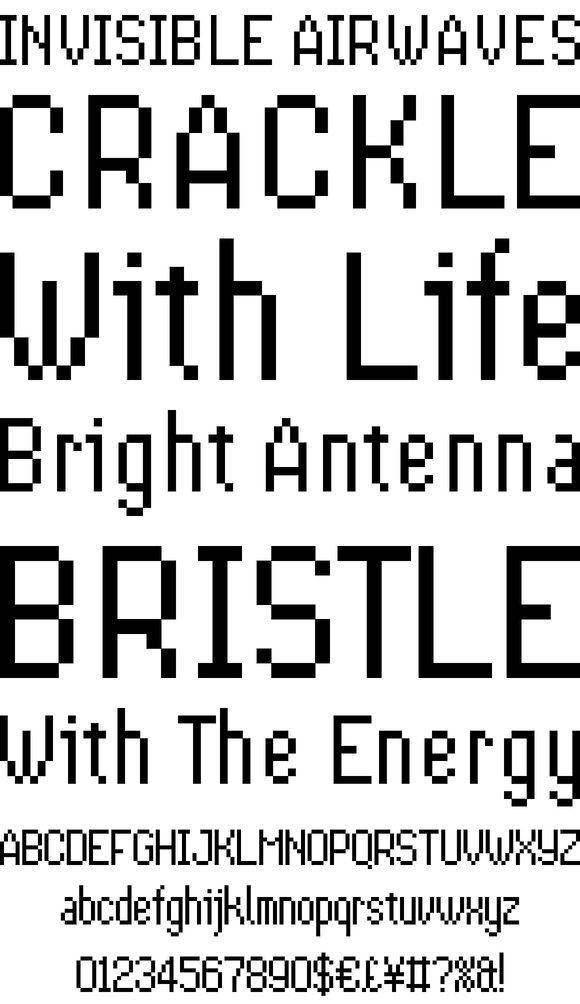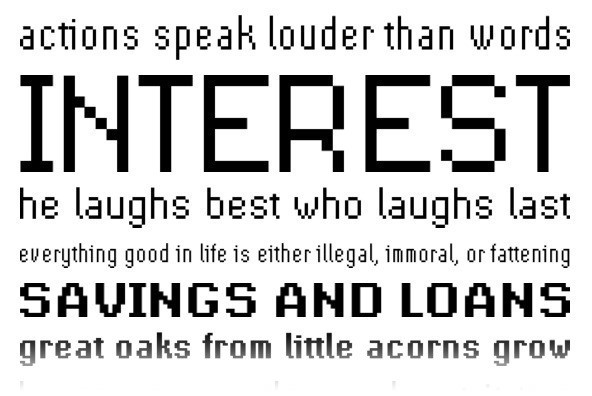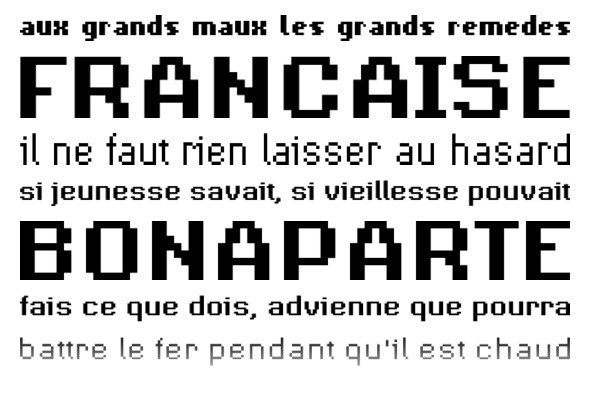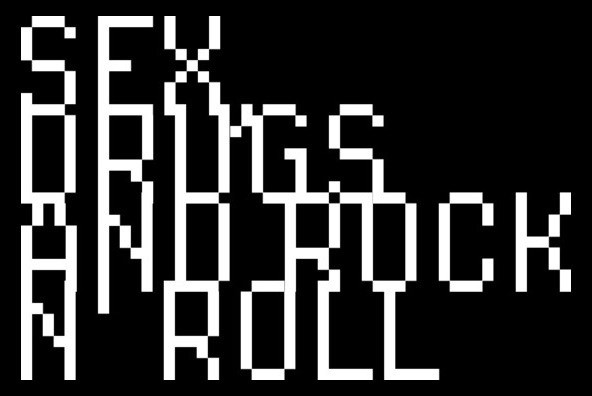
FontForum Supernormale Eight
Type is a very important element within the corporate design process. A corporate font that works in all media (screen, print, vinyl etc) delivers a very high level of recognition and resultingly, identification with the company.
Most of the existing PostScript fonts do not really perform well in new media such as the internet, especially not in small low resolution sizes (screen), and almost all of the relevant features and characteristics of the font design are lost.
Supernormale Eight was therefore designed the other way round. The outline was designed on a pixel grid to ultimately work well in all media, high and low resolution, still keeping its unique and distinguished design all the way long.
Supernormale Eight is quite legible, even in small sizes and long texts.
Designed by Felix Braden in 2007.